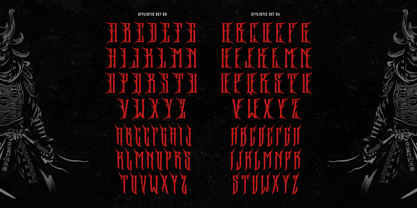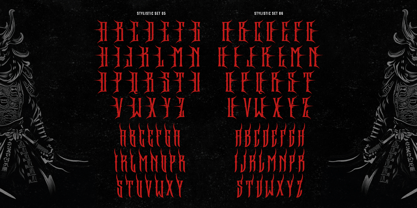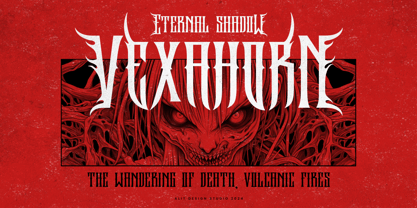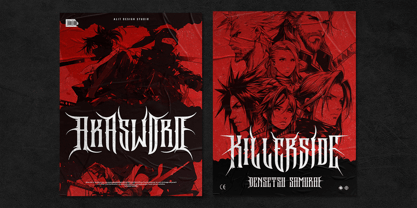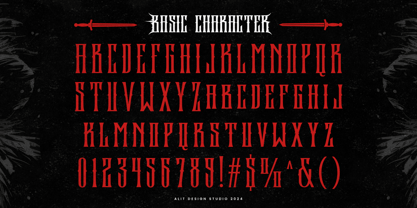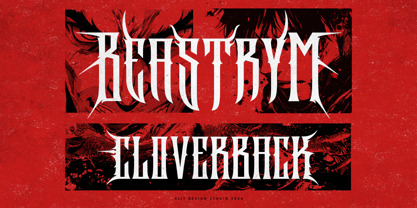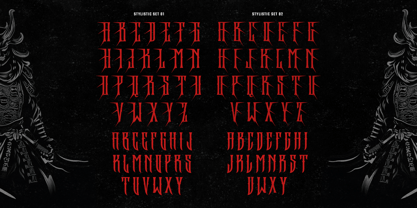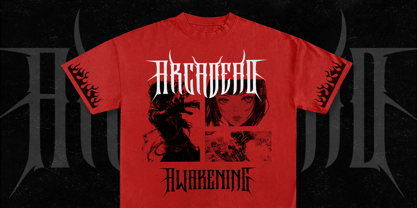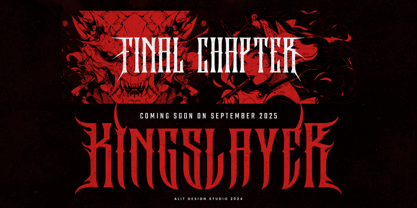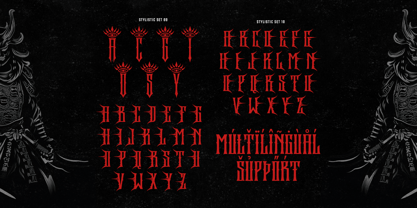
Rockakura
Rockakura Typeface: A Dark Metal Masterpiece
Unleash the fury of darkness with Rockakura Typeface, a bold and menacing font inspired by the raw intensity of metal culture. Forged with cruel thorns that evoke the hellish depths and courage to stand against the tide, Rockakura is perfect for those who dare to push boundaries in design. Whether you're creating logos, album covers, posters, or any project that screams rebellion and power, this typeface delivers a visual punch like no other.
Features That Dominate:
• Massive Character Set: With an impressive 913 characters, Rockakura provides unparalleled flexibility for your designs.
• Endless Creativity: Enjoy a wealth of alternatives and unique ligatures to craft distinctive, personalized looks.
• Dynamic Swashes: Add flair and drama with meticulously crafted swashes, giving your typography a striking edge.
• Multilingual Support: Extend your designs globally with comprehensive support for multiple languages.
Why Choose Rockakura?
Rockakura embodies the spirit of fearlessness, making it ideal for those who embrace bold, unapologetic styles. Its thorn-like design strikes a balance between chaos and precision, a testament to bravery and rebellion.
Dive into the abyss and make your mark with the Rockakura Typeface—where design meets darkness.